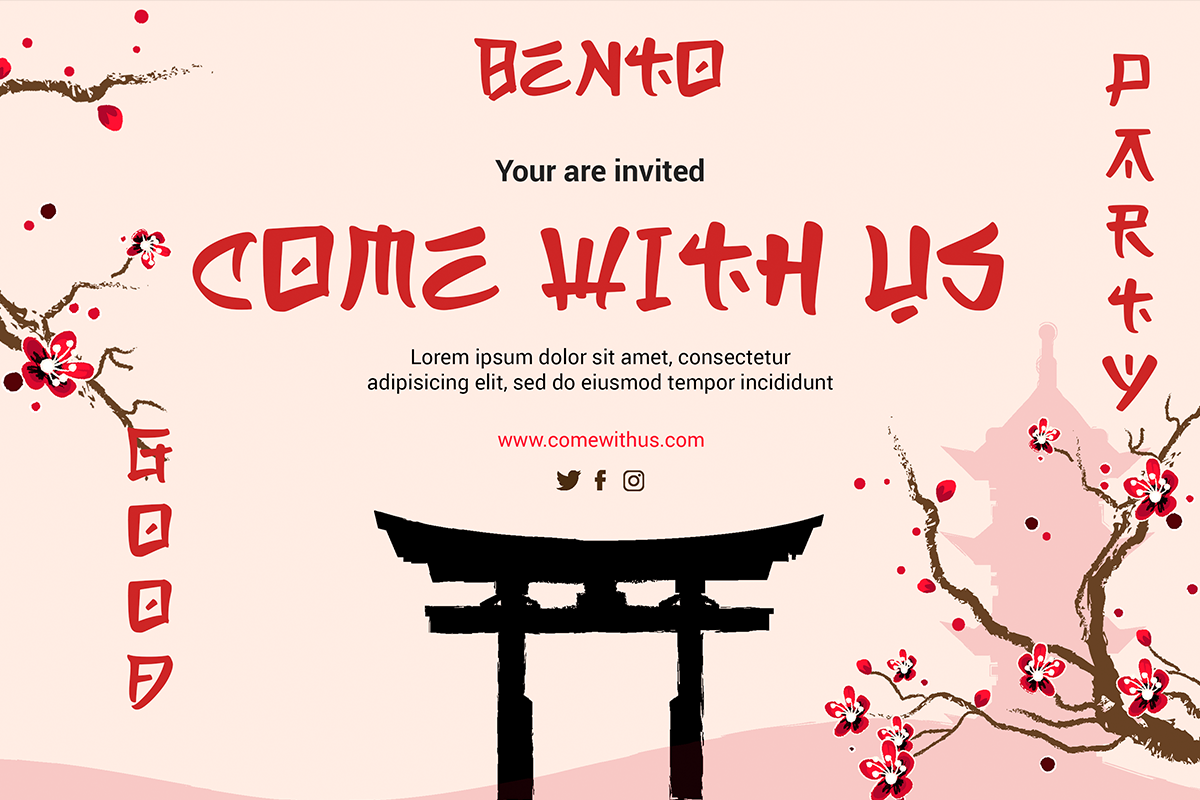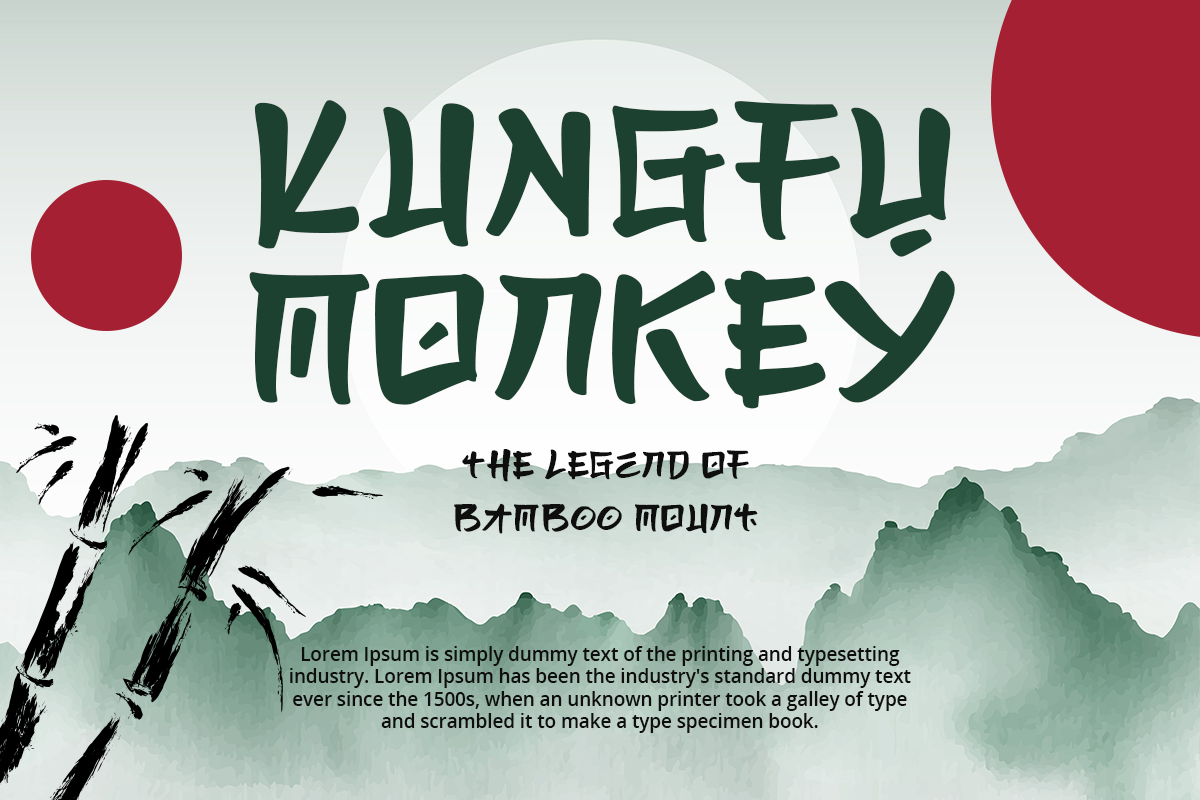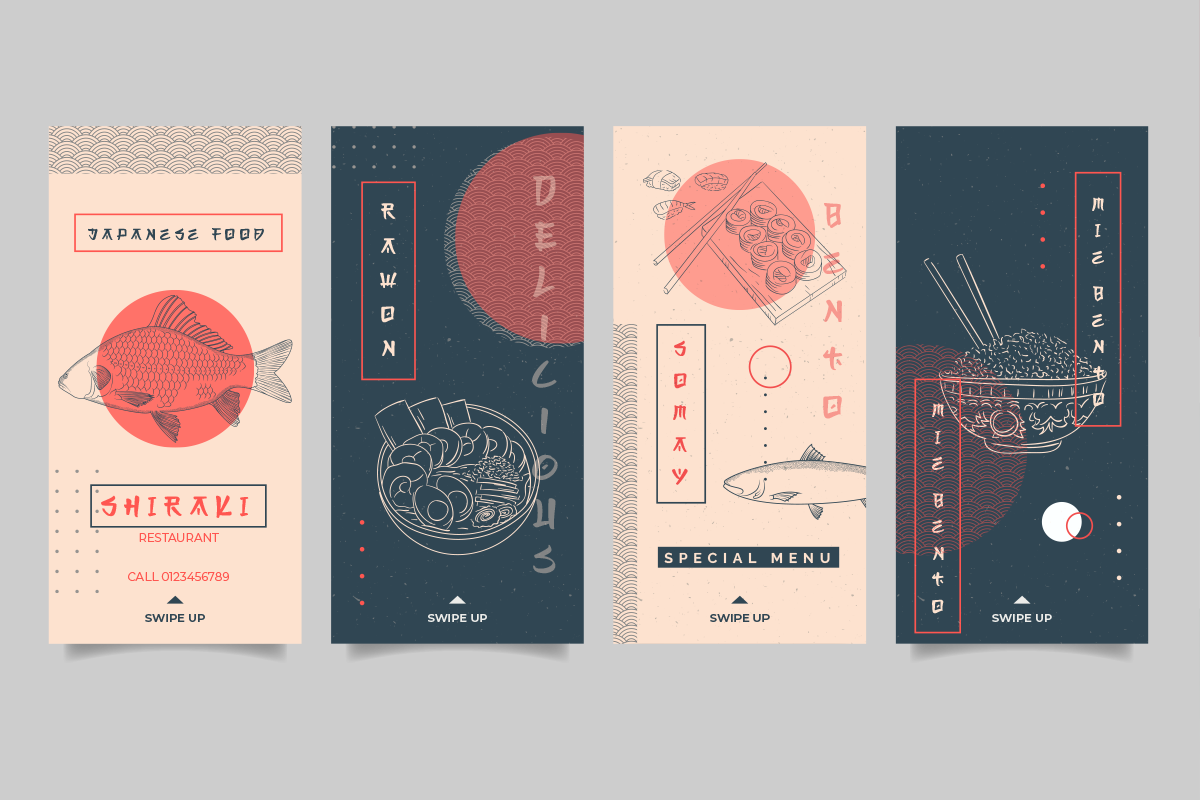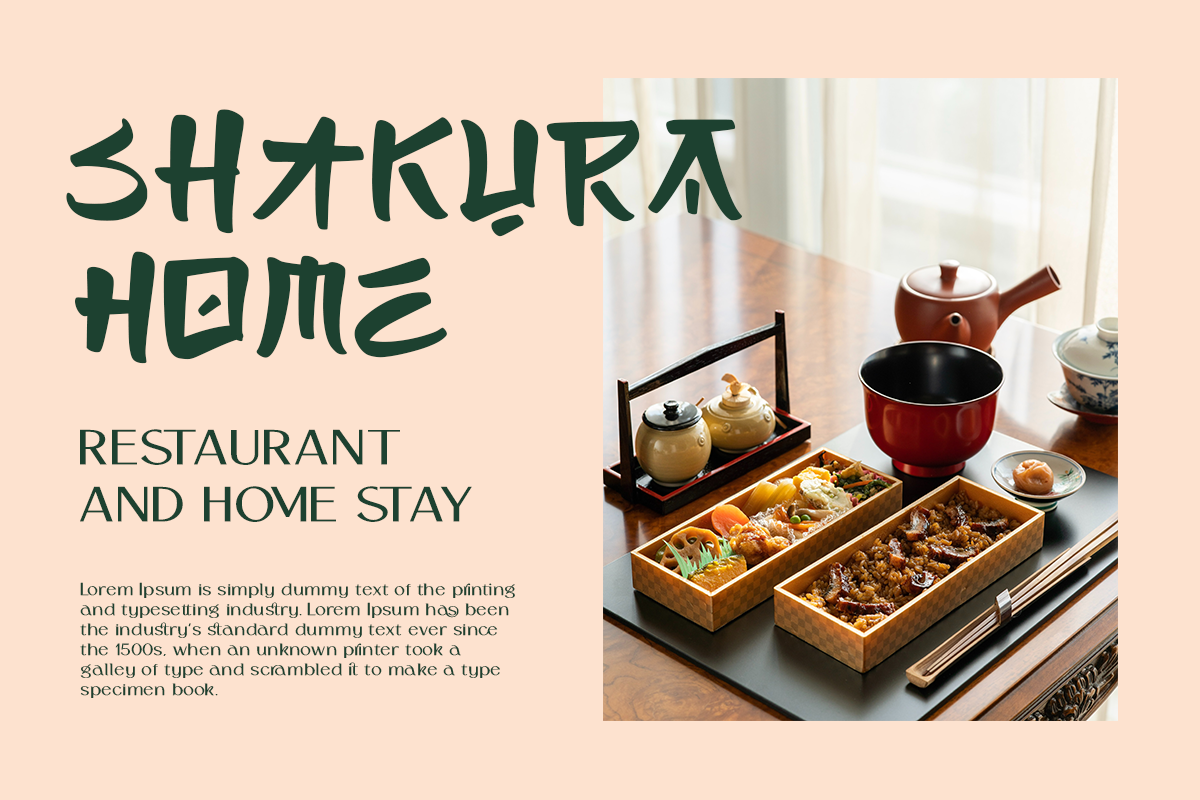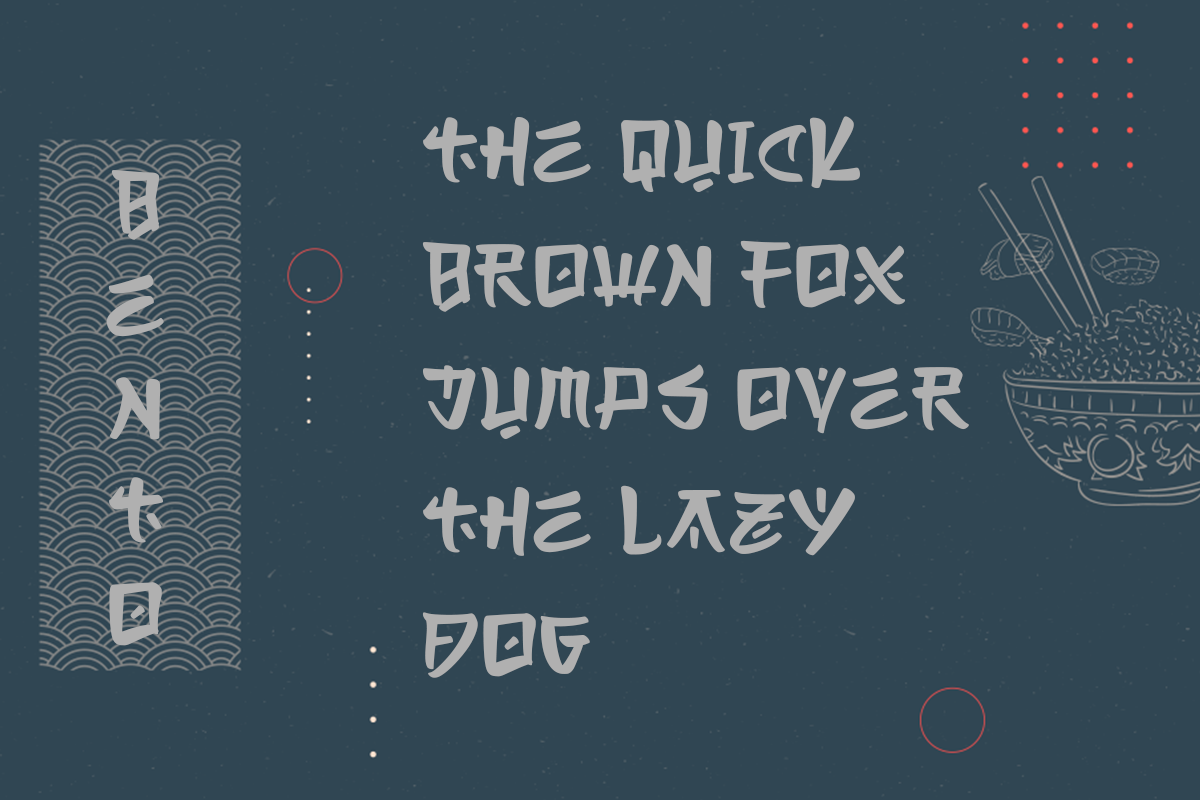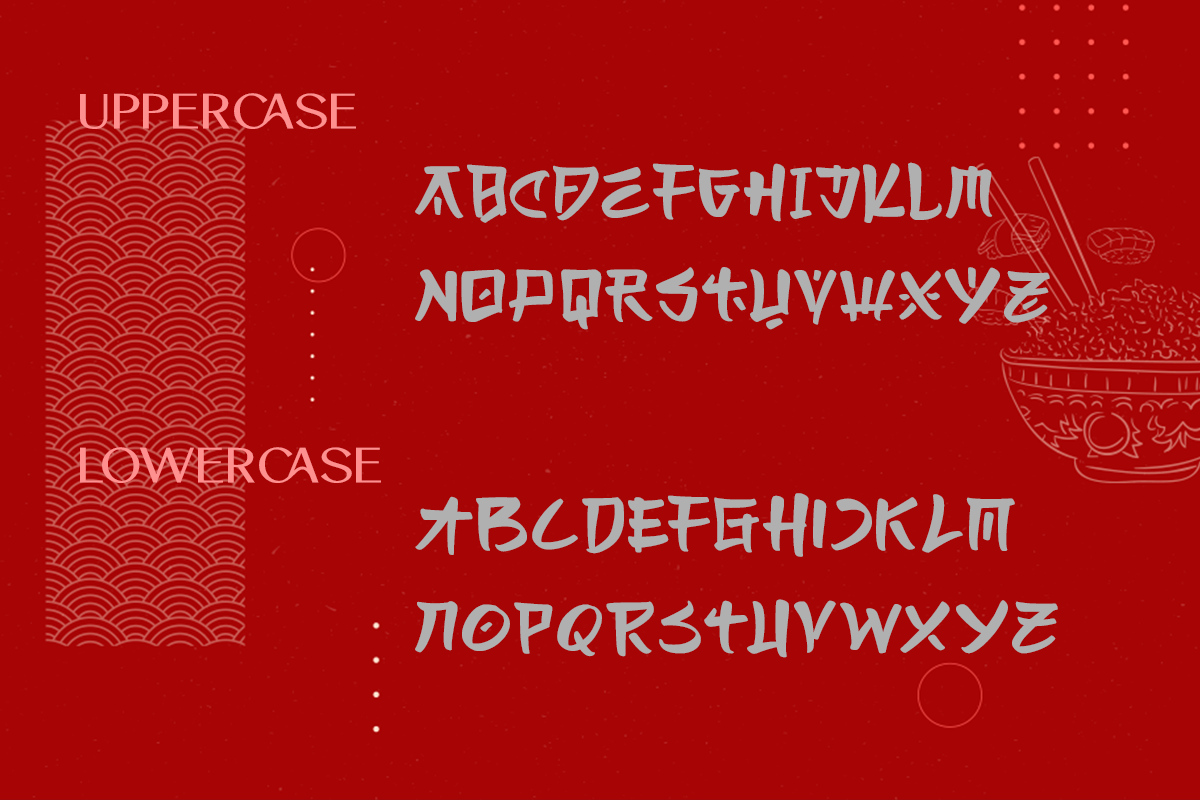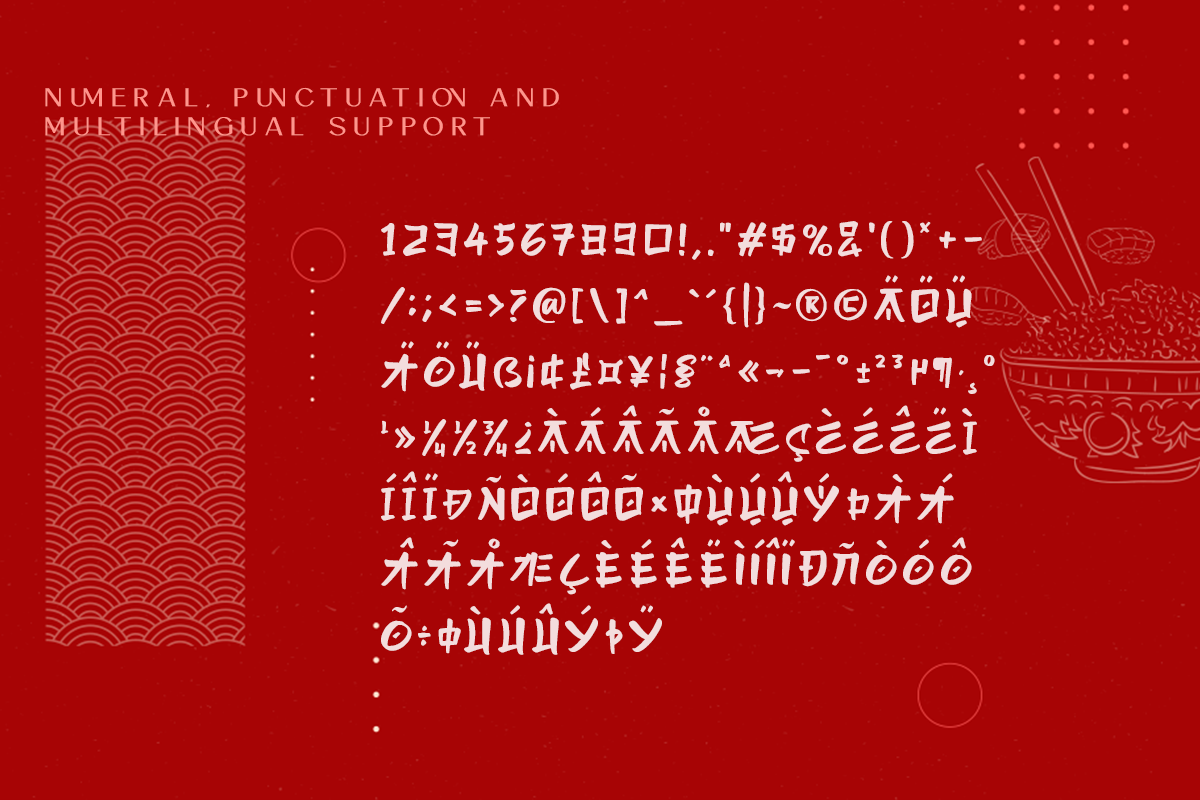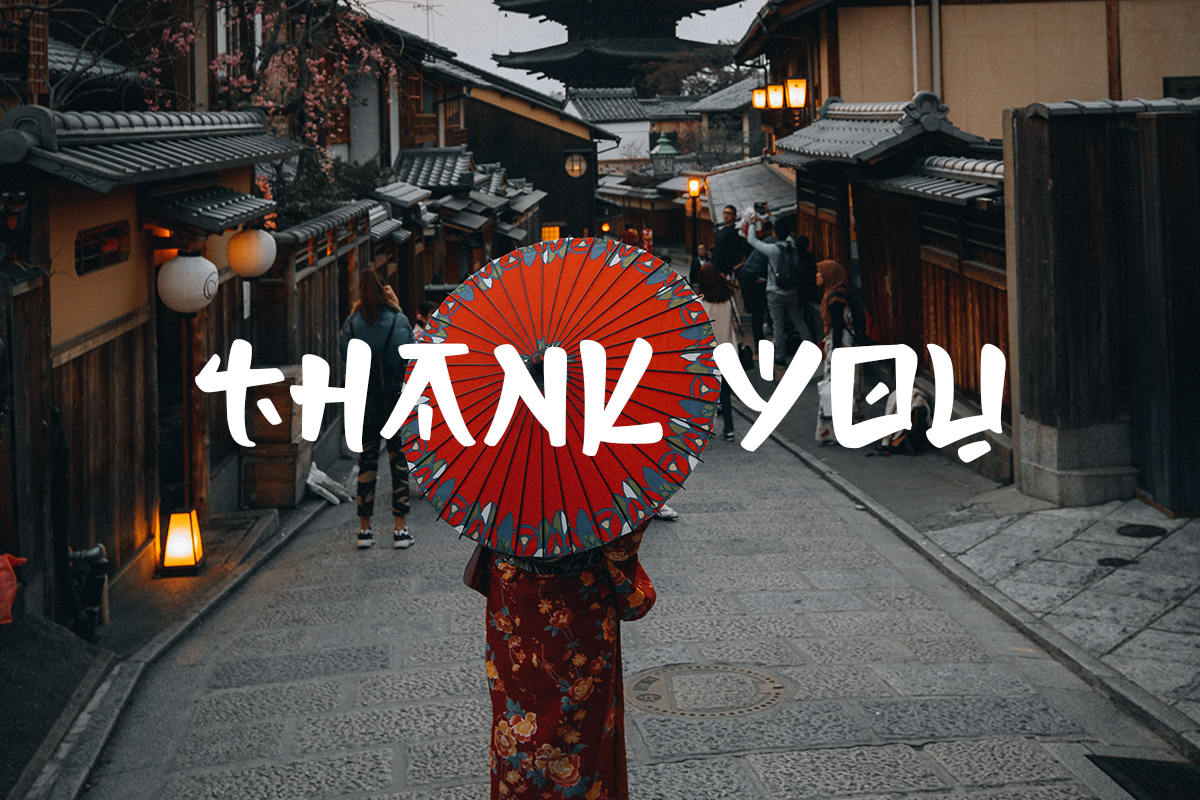
Bento Japanese Font Bento Japanese font presents a unique and attractive decorative typography display. This is a variation of a decorative font that closely adheres to a Japanese feel and theme. Not only in the form of ordinary letters, but the typeface resembles the shape of actual Japanese letters. Talking about legibility, Bento Japanese font is hard to read. You have to look at it closely to understand it. This font was created to celebrate various celebration parties. It can be used as posters and banners. Welcome party-themed banners and posters for the invitees. Large printed banners with large font sizes will also be the best choice when using this type of font as it will catch everyone's eyes on the words you write using this font when entering a room. You can also use Bento Japanese font in other products, such as; t-shirts, book covers, and branding. This font is suitable for all products with a Japanese theme. It can also be used as marketing advertisements and packaging for food products. This font can also be used as a decoration in places that people often visit, such as; shopping malls, restaurants, and bars. Our display and decorative fonts collection is compatible with usage as; Figma fonts, Canva fonts, Freepik Fonts, and Adobe Fonts. They also work as Windows Fonts and Apple Fonts. For your social media needs, you can use and install fonts in our collection of display and decorative fonts to use as Instagram Fonts, Facebook Fonts, and Twitter Fonts.